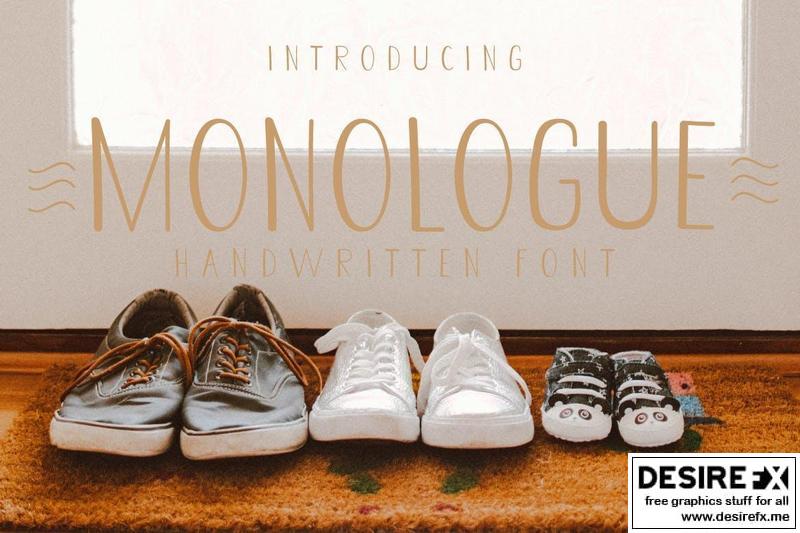
Monologue – Display Font UTNKGYD
Introducing Monologue, a simple and unique display font.
So perfect for you who needs a typeface for logo designs, magazine, social media, brochure, and many more.